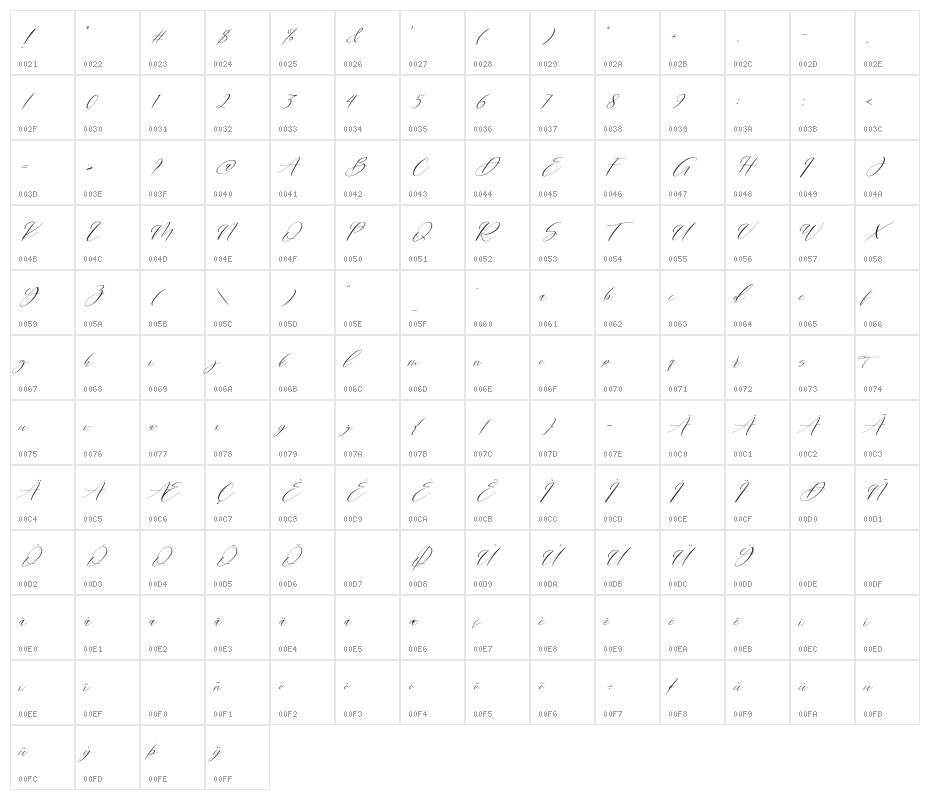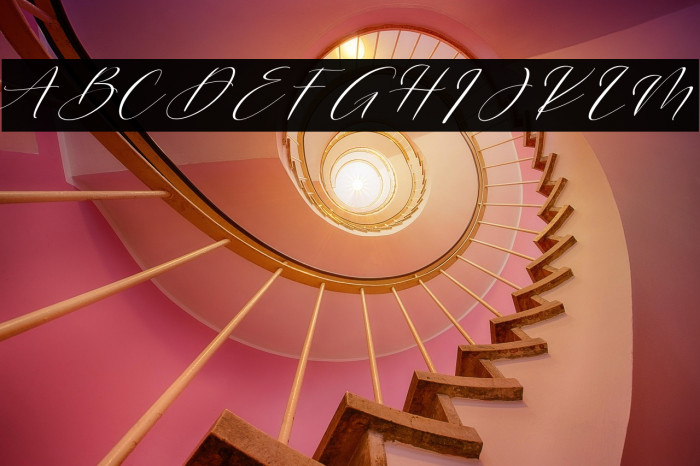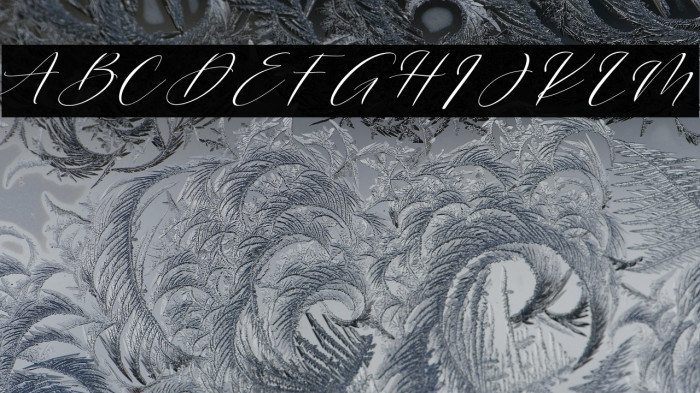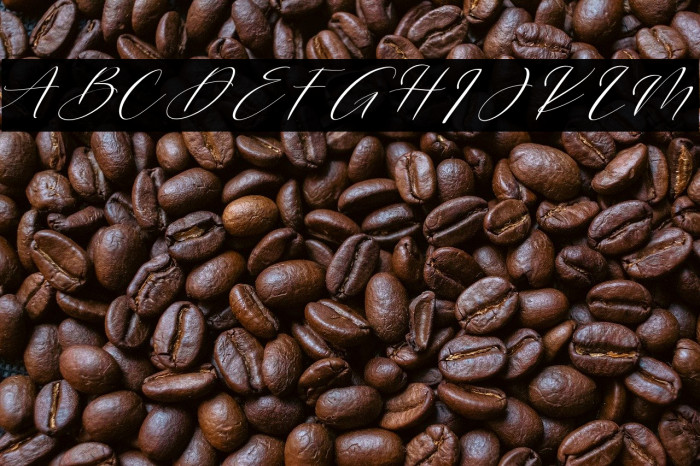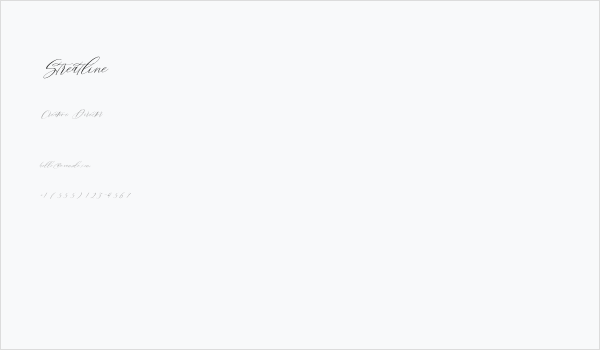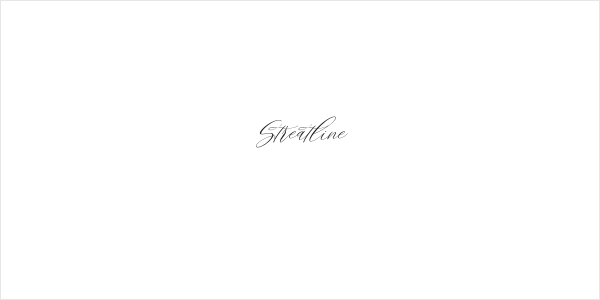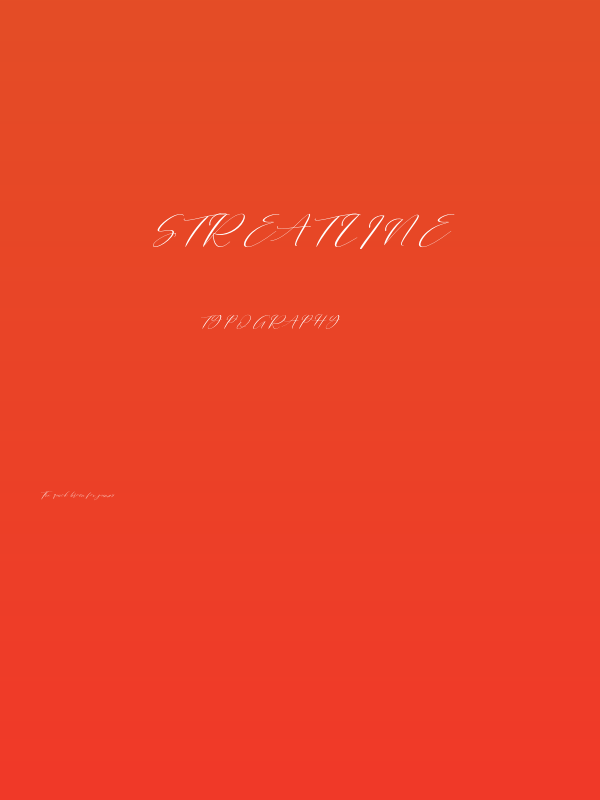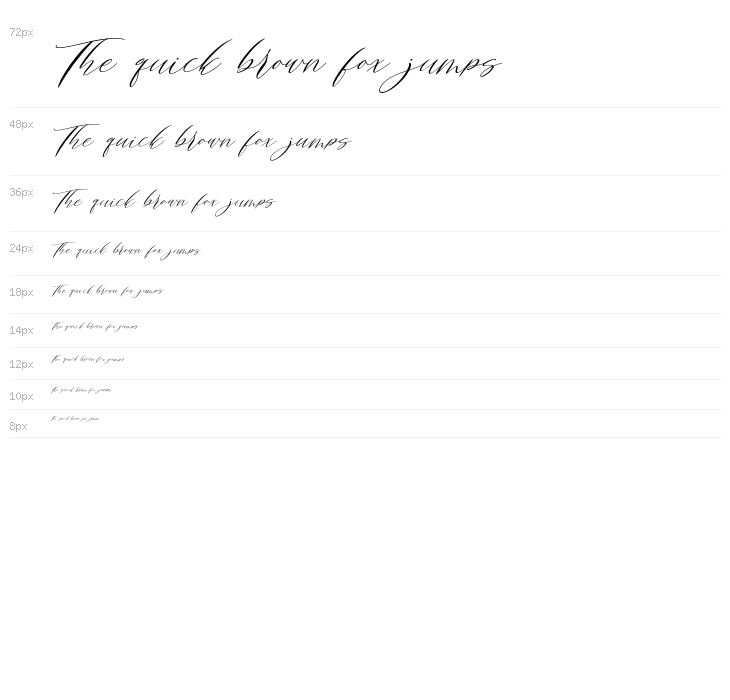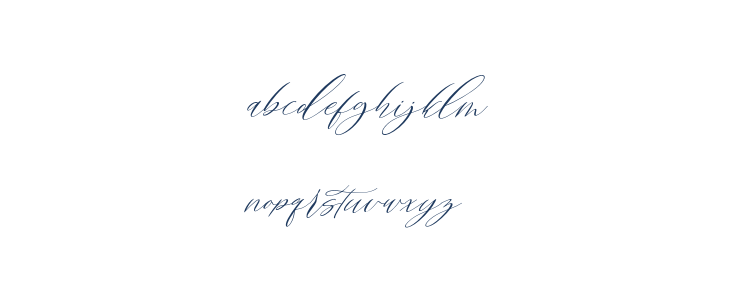
Streatline Font
Streatline Description
This font exudes elegance and sophistication with its fluid, cursive style. The letters are gracefully connected, creating a seamless flow that mimics the art of calligraphy. The uppercase letters are particularly ornate, with sweeping curves and flourishes that add a touch of grandeur. The lowercase letters maintain a consistent rhythm, enhancing readability while preserving the font's artistic flair. The numerals and special characters are designed with the same attention to detail, ensuring a cohesive look across all text elements. This font is perfect for projects that require a touch of elegance and refinement.